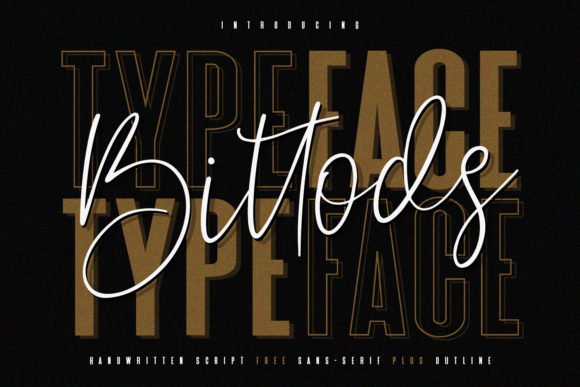
The Perfect Pair: Elevating Your Designs with Bittods Duo Font
As designers, we’ve all been there – staring at a blank canvas, trying to bring a concept to life. The moment of clarity hits when you discover the perfect font combination, and suddenly, your design starts to take shape. This is exactly what happens when you pair the elegant script of Bittods Duo Font with its sleek sans serif counterpart. The result is a harmonious balance of styles that elevates your design to new heights.
Bittods Duo Font is a versatile tool designed to help you create sophisticated and exquisite designs. Whether you’re working on branding, packaging, or arts & crafts projects, this font combination will give you the freedom to explore your creativity. With its unique blend of styles, Bittods Duo Font is a valuable asset for designers looking to take their work to the next level.
Bittods Duo Font Key Features
- Font Size: The font comes in two sizes: Regular (Normal) and Bold, providing versatility for different design applications.
- Resolution: Bittods Duo Font is designed for high-resolution displays, making it suitable for use in digital media, such as websites, apps, and social media platforms.
- Unique Characteristics: This font features a unique blend of modern and vintage elements, creating a distinctive visual identity for designers and artists.
- Character Set: Bittods Duo Font includes a comprehensive character set, covering Latin, Cyrillic, and Greek alphabets, as well as various punctuation marks and symbols.
Bittods Duo Font Review
I recently had the chance to work with Bittods Duo Font, and here’s my honest review.
- Unique aesthetic: Bittods Duo Font offers a distinctive, eye-catching look that can add a touch of personality to any project.
- Legibility: The font is surprisingly readable, even at smaller sizes, making it a great choice for digital applications.
- Comprehensive character set: The font includes a wide range of characters, including numerals, punctuation, and special characters.
- Limited font weights: Bittods Duo Font is available in only a few font weights, which may limit its versatility in certain applications.
- No italics: Unfortunately, Bittods Duo Font does not offer italics or other stylistic variations.
- Limited language support: While the font includes a comprehensive character set, it may not be suitable for languages that require more complex typography.
Bittods Duo Font is a solid choice for designers looking for a unique, legible font. While it has some limitations, its distinctive aesthetic and comprehensive character set make it a great option for digital applications. I’d definitely consider using it again in the right project.
The Bittods Duo Font is ideal for:
- Logo designs and branding materials.
- Graphic design projects, such as posters, flyers, and brochures.
- Web design projects, such as website headers, footers, and content sections.